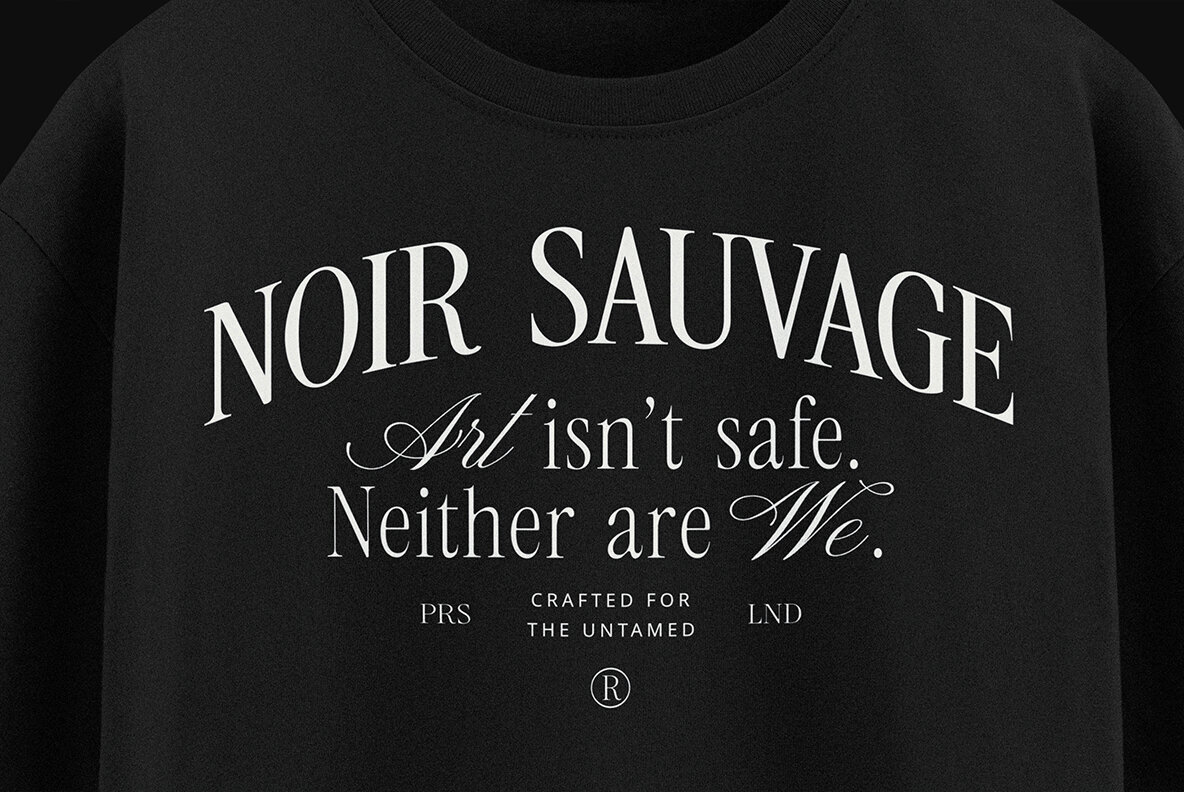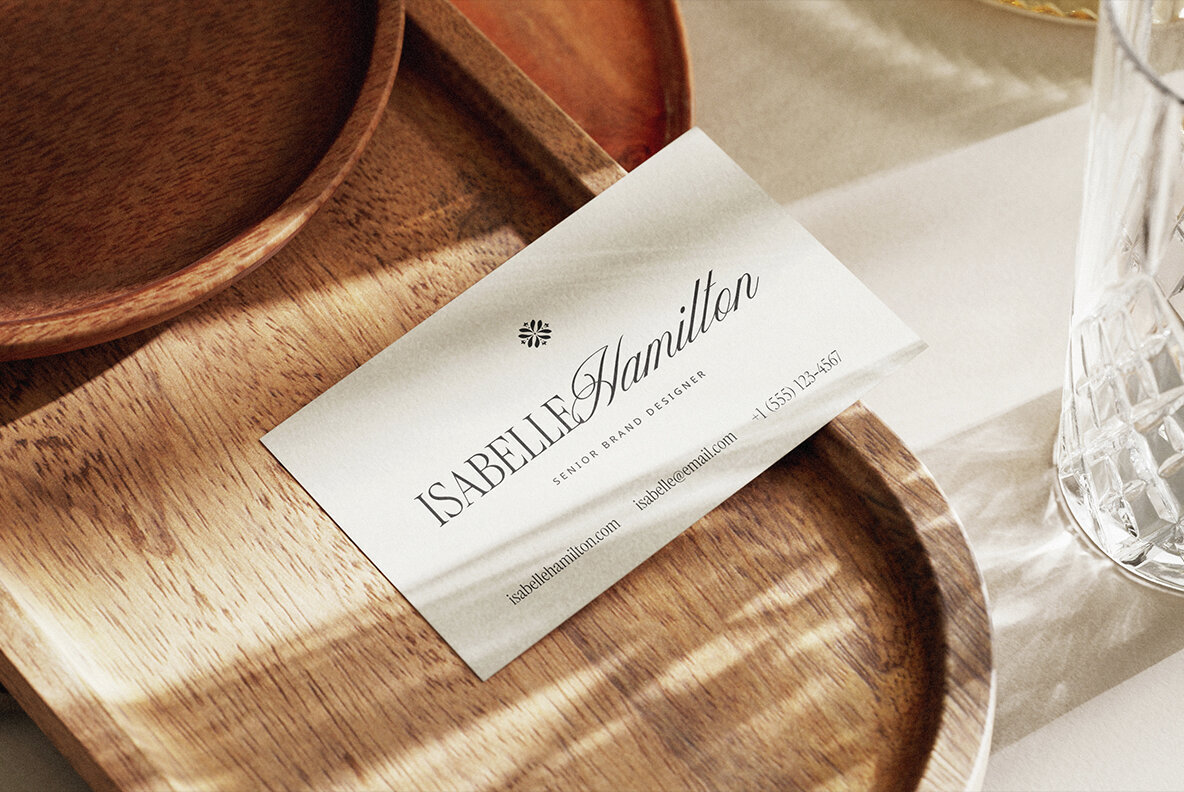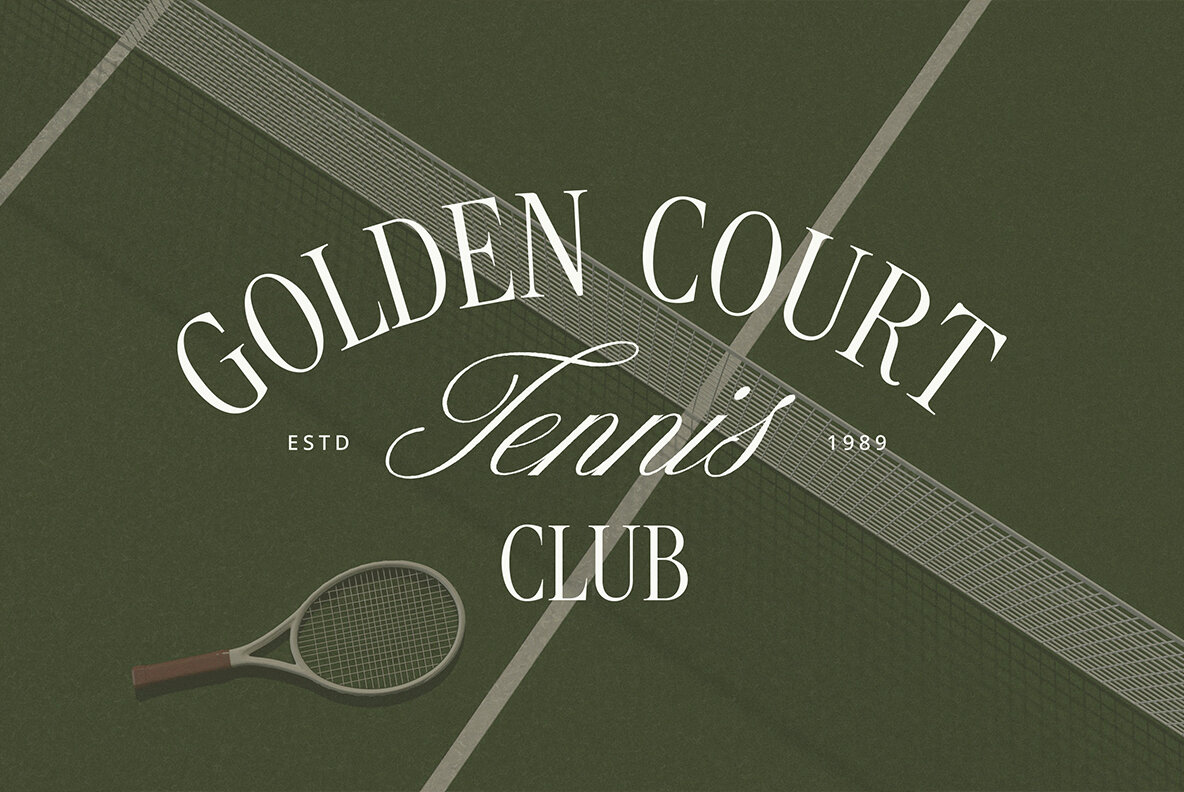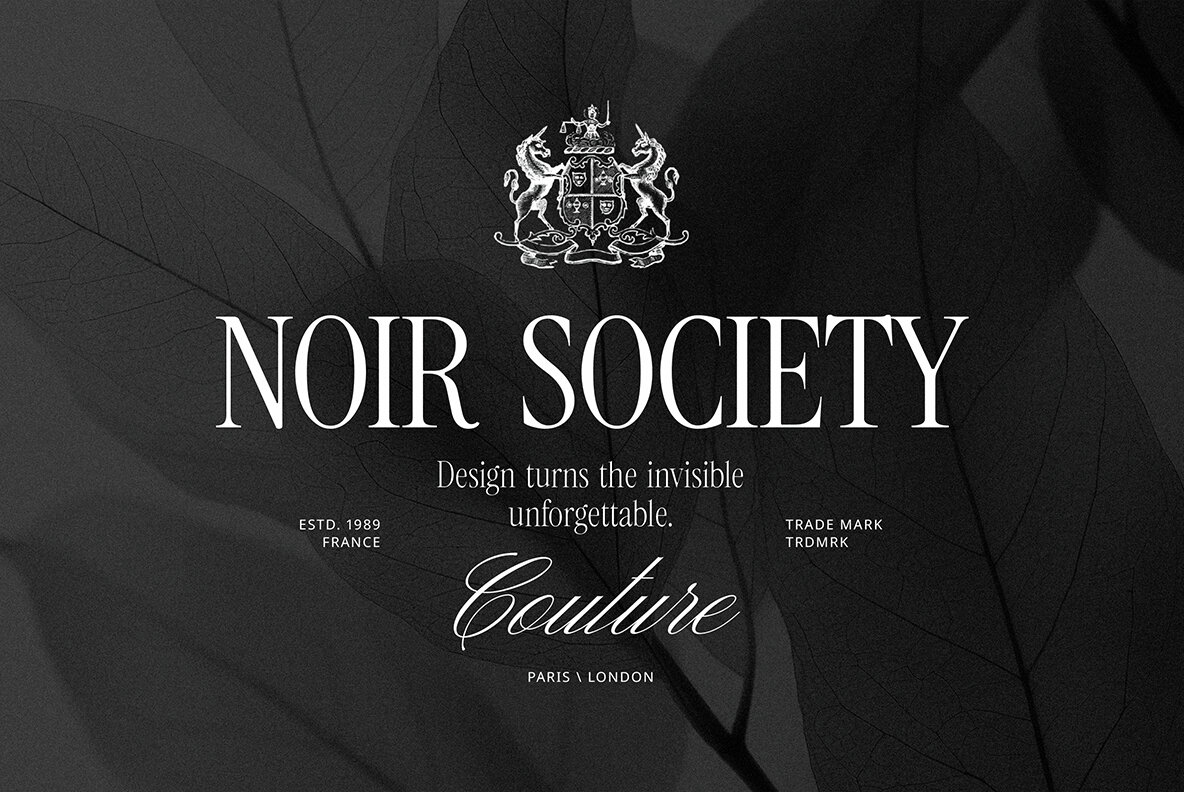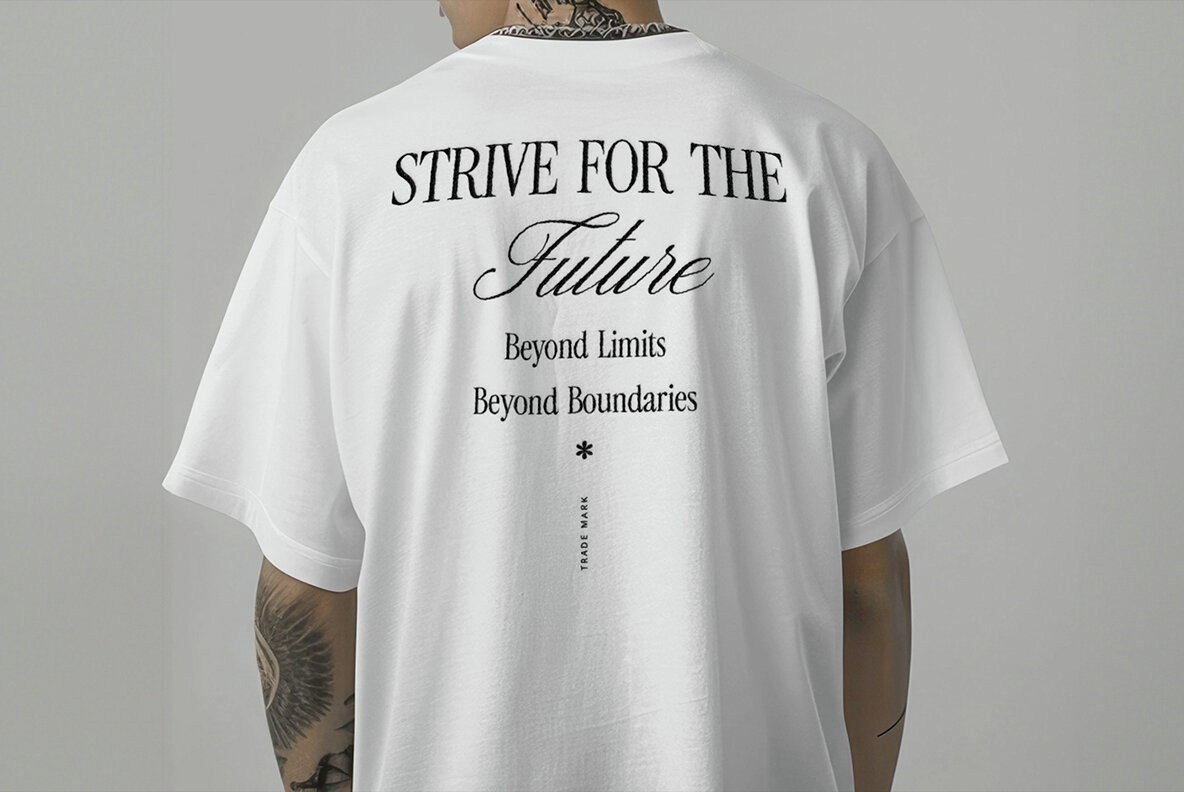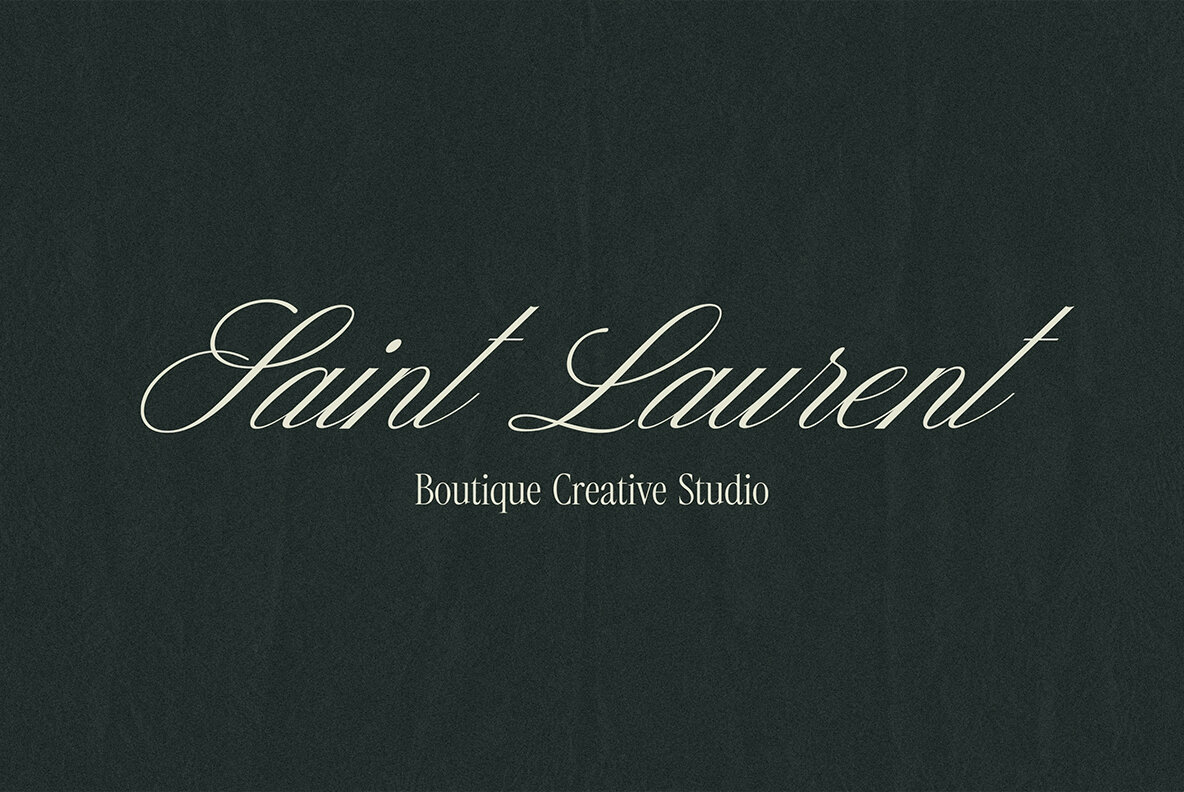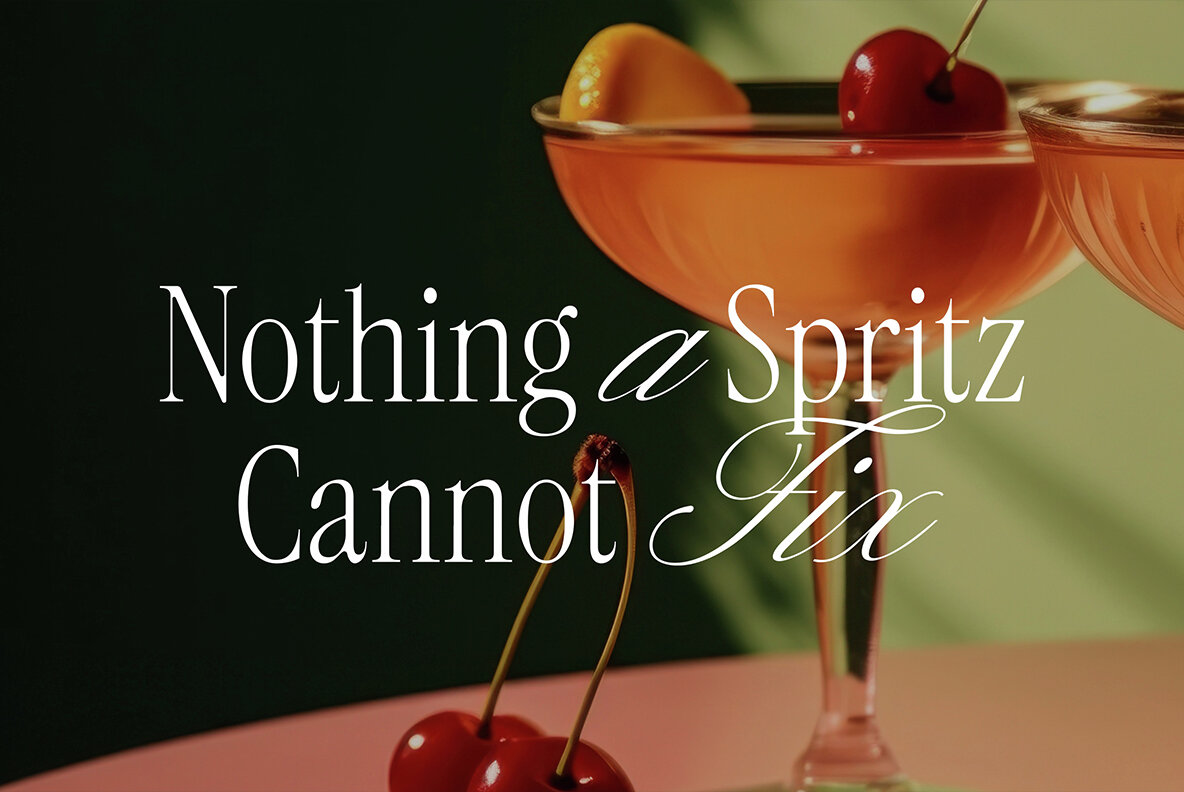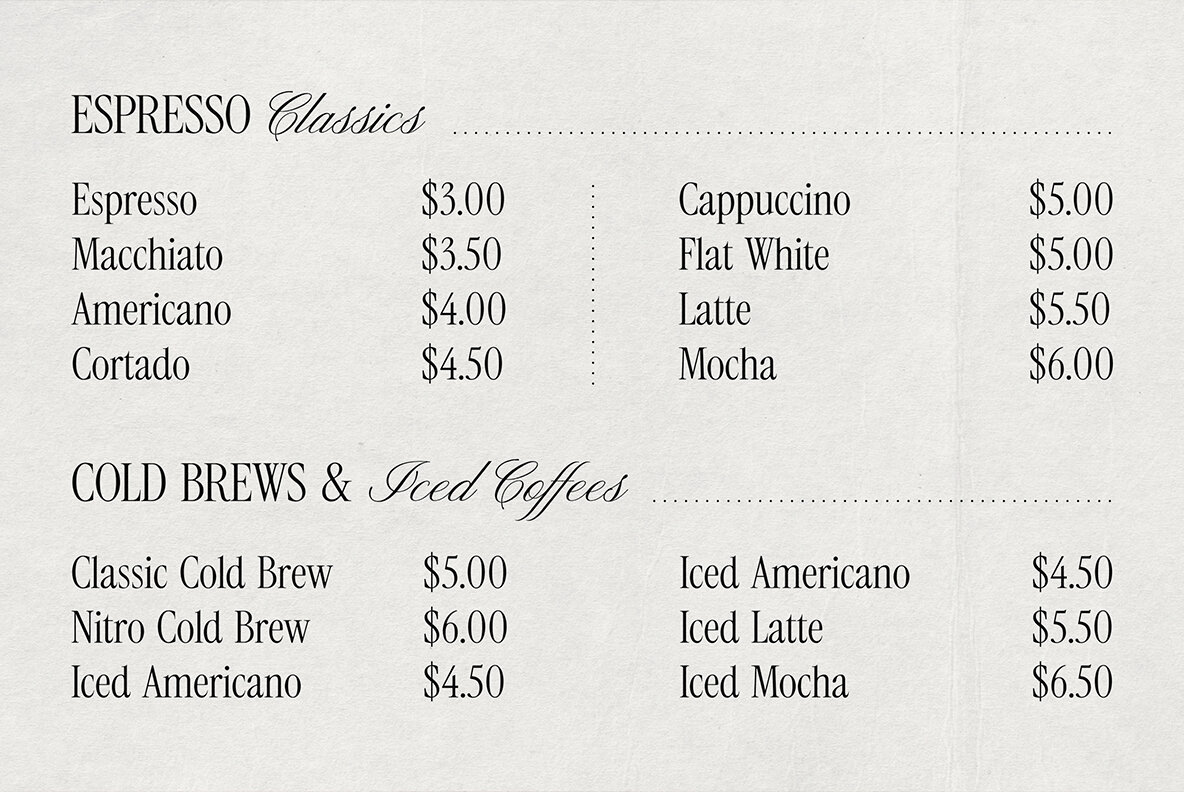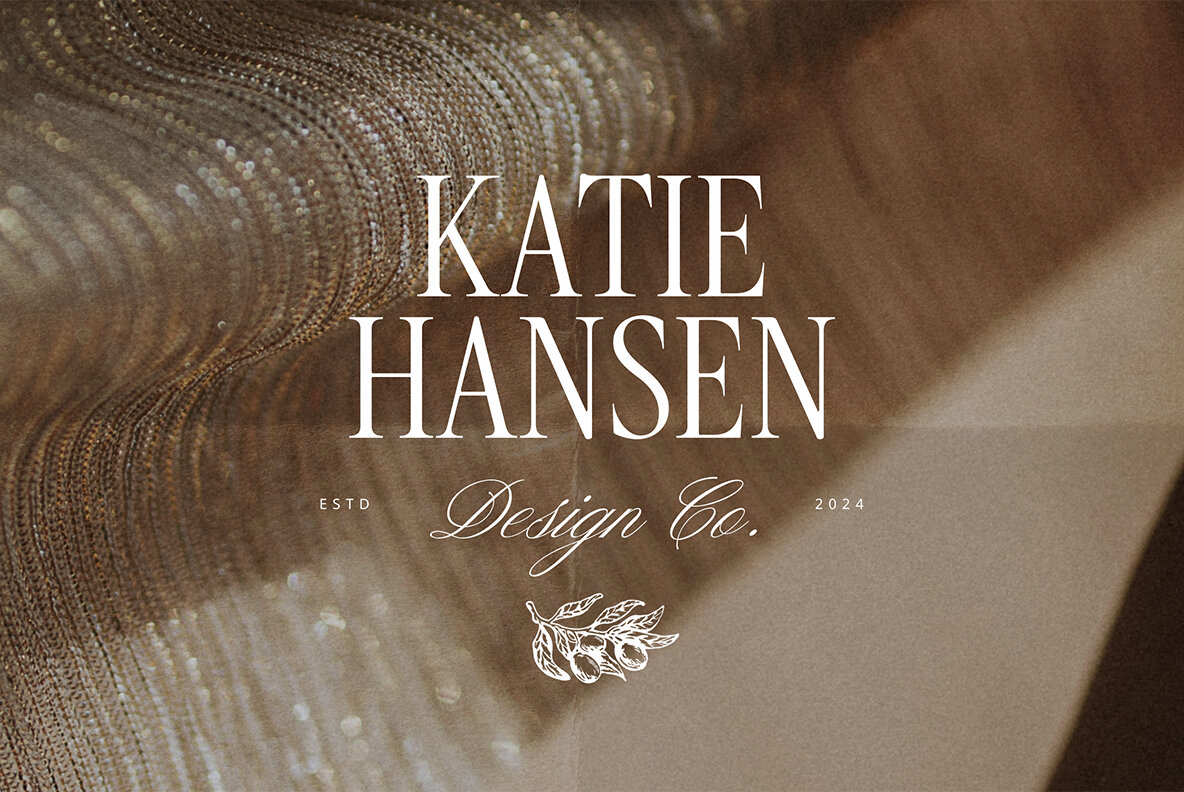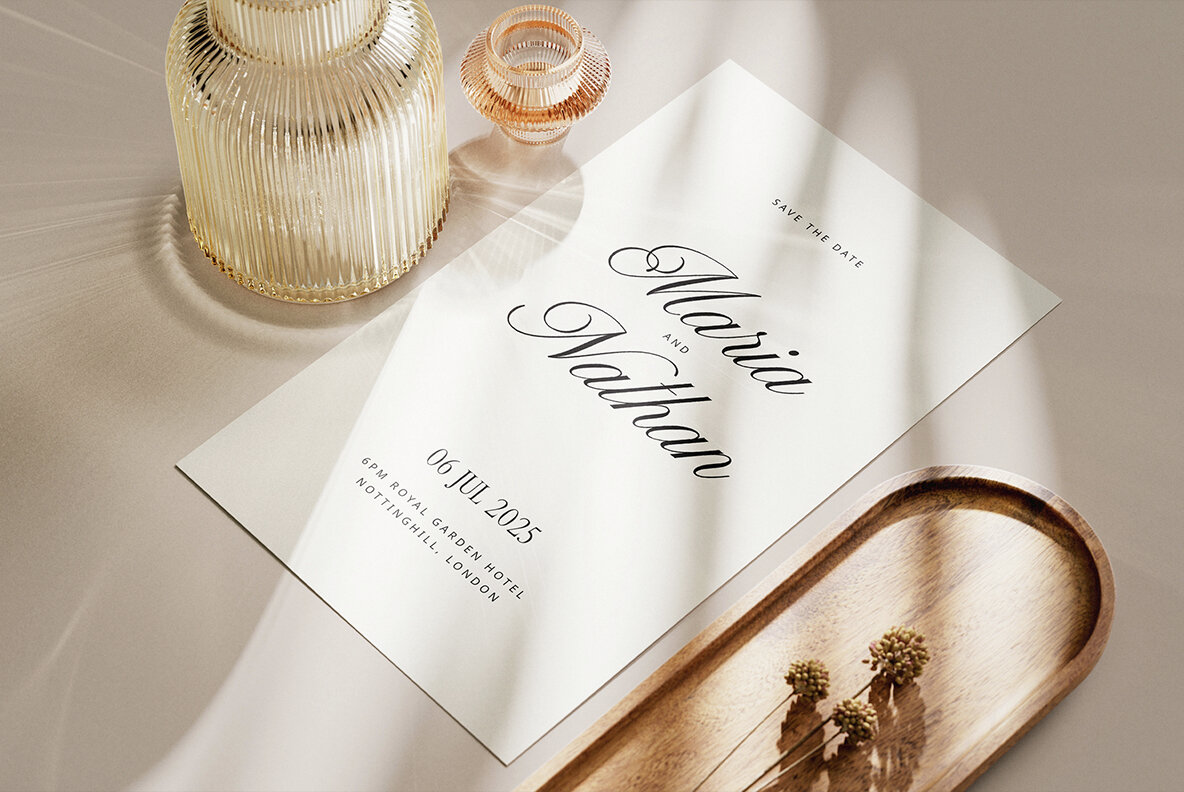
Darline Font Duo
Meet Darline Font Duo, a harmonious blend of serif and script styles that creates a balanced, refined look. Darline Font Duo comes with multiple styles in both serif and script. The serif includes three weights—Light, Regular, and Bold. The script offers four unique versions: Regular, Regular Slanted, Aged, and Aged Slanted. Creating Darline was such a joy – I hope you have just as much fun using it in your projects! Why You’ll Love Darline Font Duo: